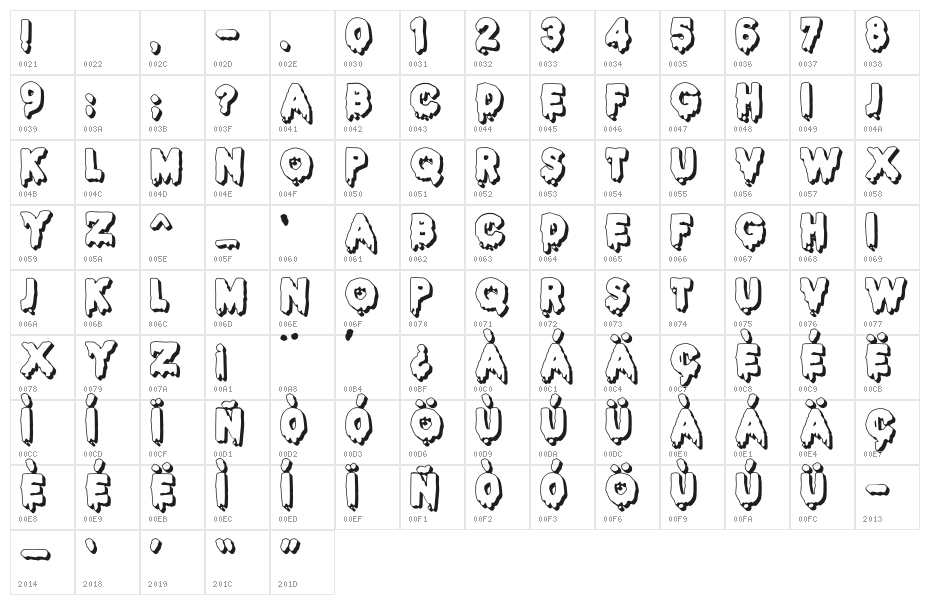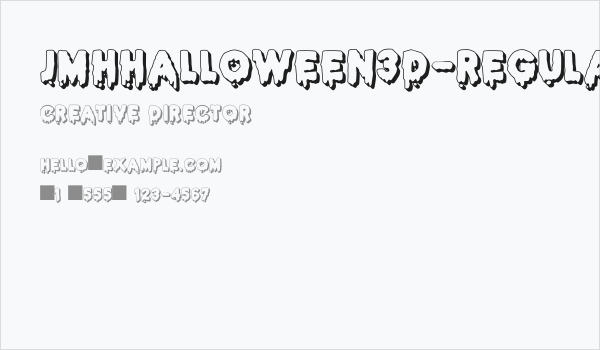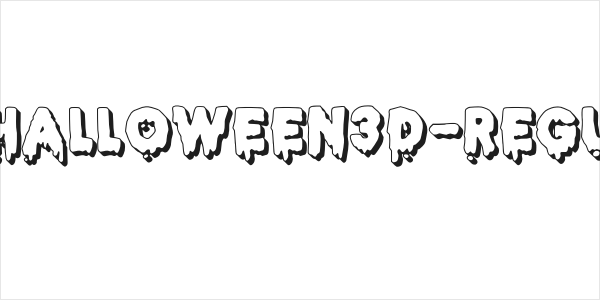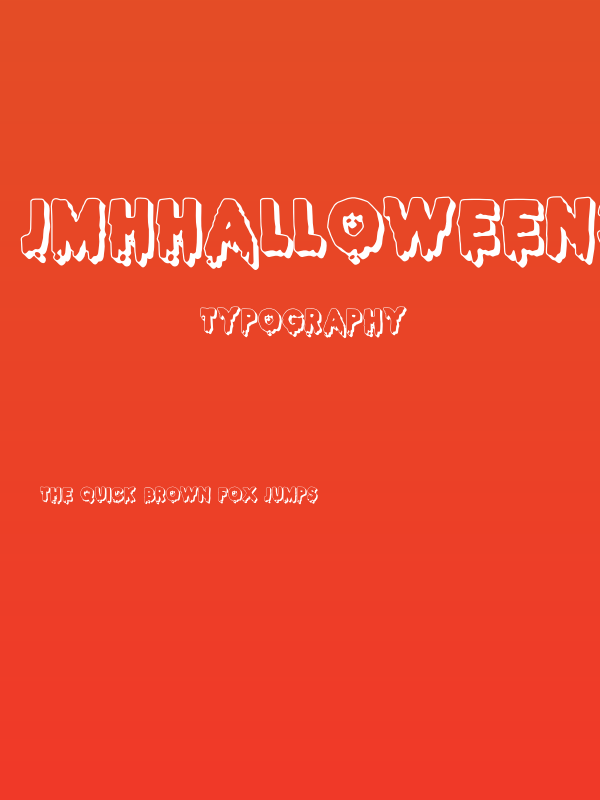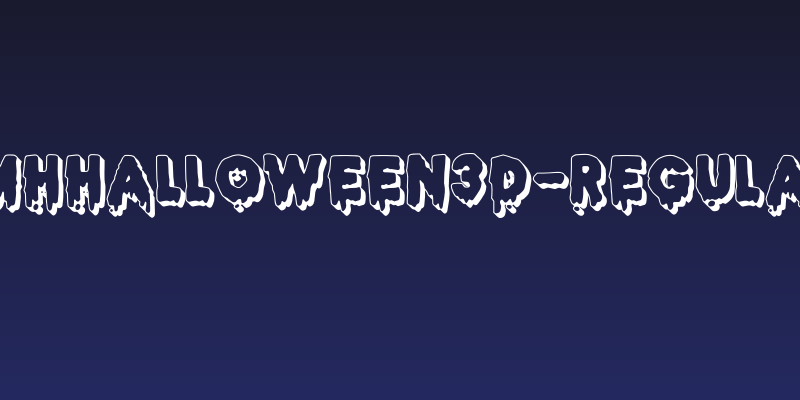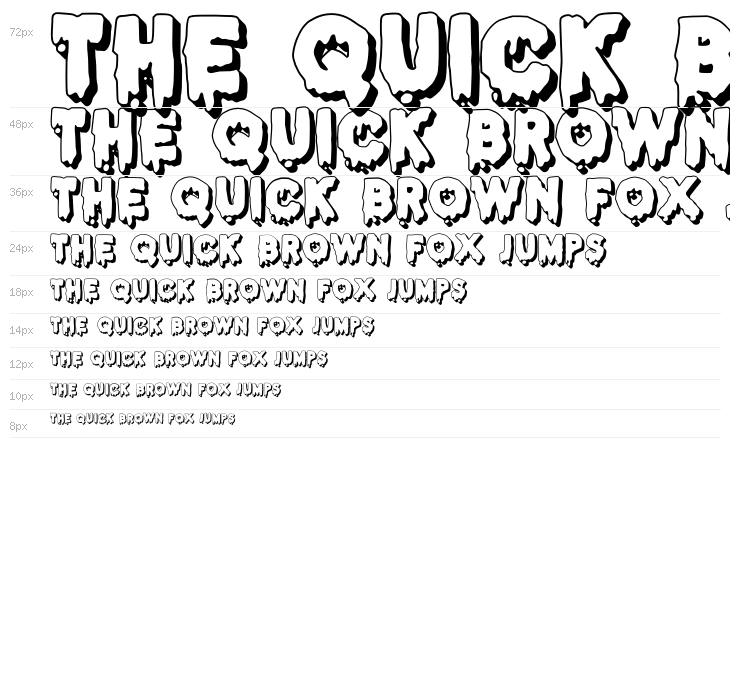
JMHHALLOWEEN3D-Regular Font
JMHHALLOWEEN3D-Regular Description
This font features a bold and playful design with a distinct 3D effect, reminiscent of dripping or melting elements, making it ideal for Halloween-themed projects. The characters are uppercase and lowercase letters, numbers, and a selection of special characters, all designed with a consistent dripping motif that adds a spooky and fun touch. The bold strokes and shadowing create a sense of depth, enhancing its visual impact. This font is perfect for creating eye-catching headlines, posters, or any creative project that requires a touch of whimsy and horror.
| Proposed Projects | Ideal for Halloween posters, party invitations, themed merchandise, and spooky event branding. |